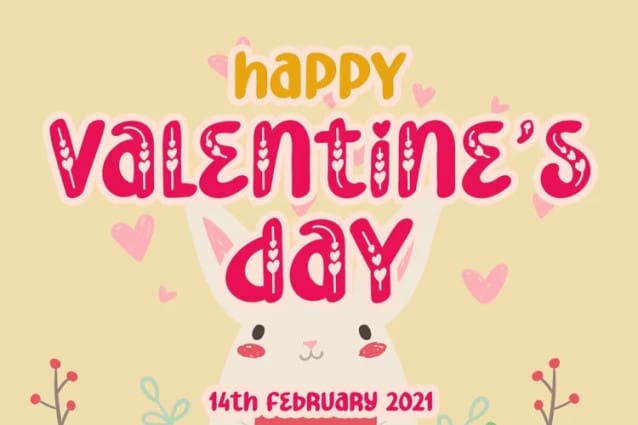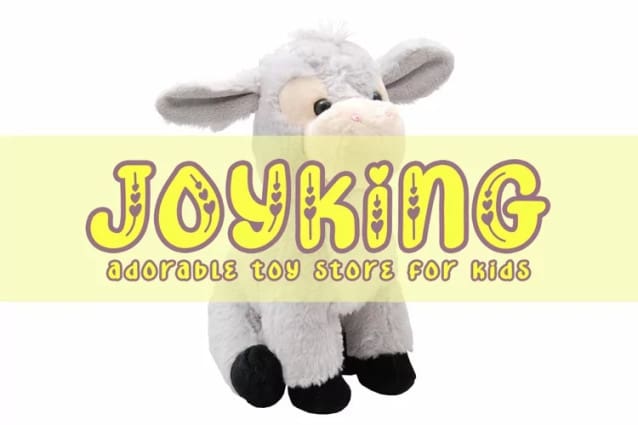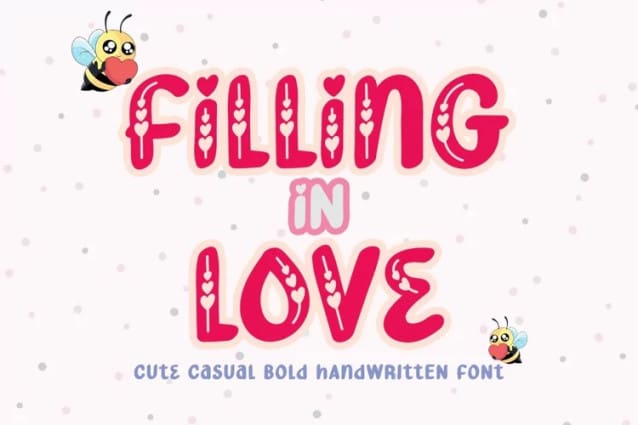
Filling In Love Font
Filling In Love Font is bold, cute, and sweet display font. It has 2 styles, solid and with heart accent. This font will add the cuteness and romance in your design.
+Tons of Glyphs
+Multilingual glyphs.